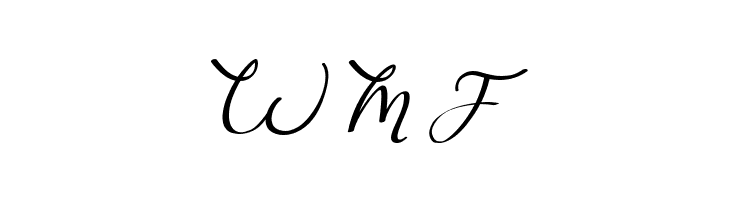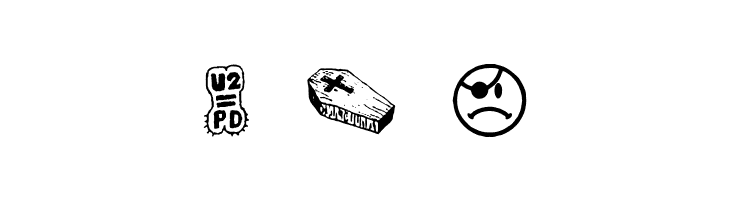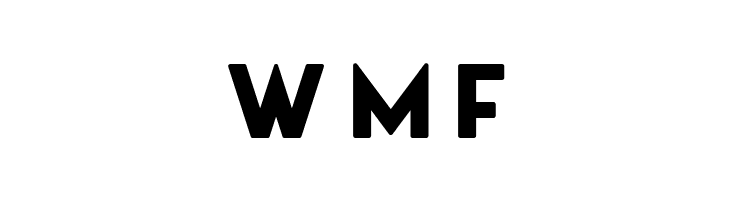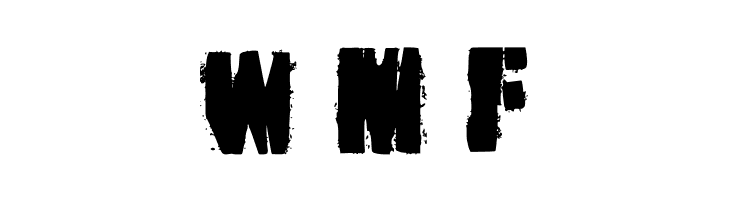
A vibrant set of comic-style elements with explosive words and dynamic shapes.
A bold, hand-painted style font with dynamic, expressive strokes.
A playful, bold script font with a handwritten feel.
A bold, playful font with rounded strokes and a cartoonish style.
A bold, modern font with thick strokes and uniform width, perfect for impactful designs.
A dynamic and elegant script font with flowing, cursive letterforms.
A sophisticated script font with elegant, flowing cursive letters and vintage calligraphy style.
An elegant, flowing script font with interconnected letters and subtle flourishes.
A bold, playful script font with a handwritten style and high contrast.
A whimsical and eclectic dingbat collection with comic and pop culture motifs.
A bold, playful handwritten font with thick strokes and rounded edges.
An elegant script font with flowing, cursive letters and intricate flourishes.
A playful, bold, and hand-drawn font with a whimsical style.
A bold, geometric font with clean lines and a modern, assertive style.
An artistic, hand-drawn font with elongated strokes and a playful yet elegant style.
A playful, hand-drawn font with bold, irregular characters and a cartoonish style.
A bold, distressed font with a rugged, edgy appearance.
A bold, distressed font with a rugged, vintage texture.
A playful, hand-drawn font with bold strokes and a quirky style.
A bold, playful font with dynamic curves and a modern calligraphic style.
An elegant, flowing script font with a sophisticated, handwritten style.